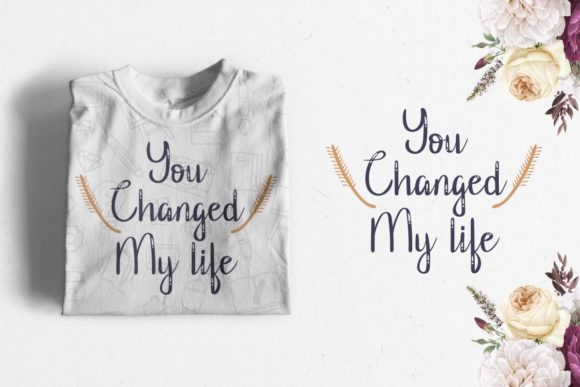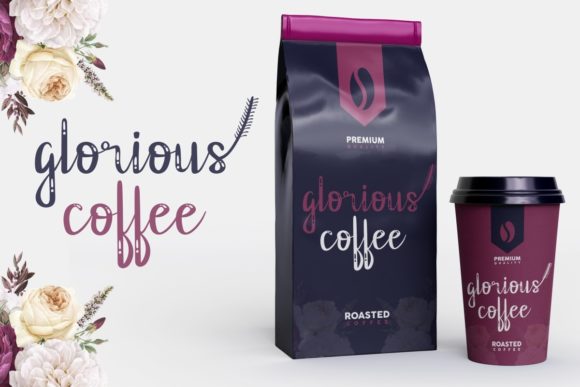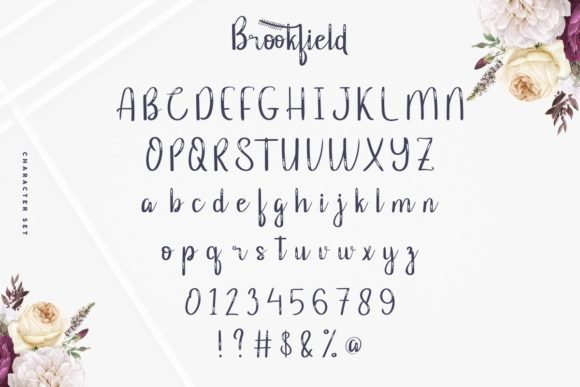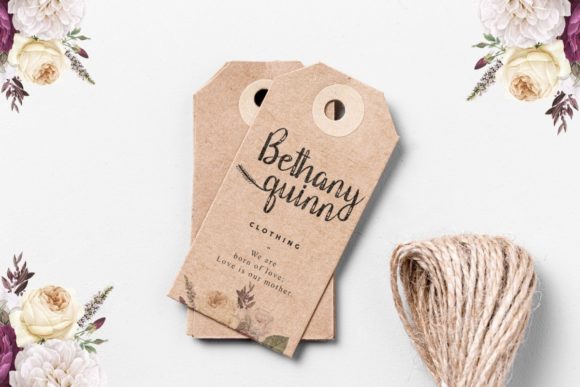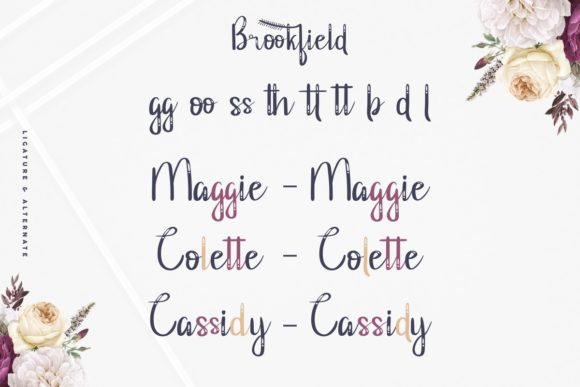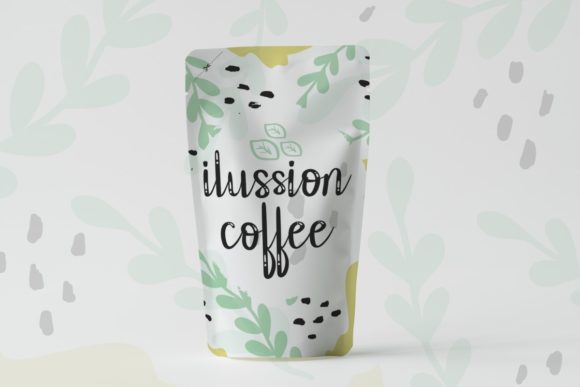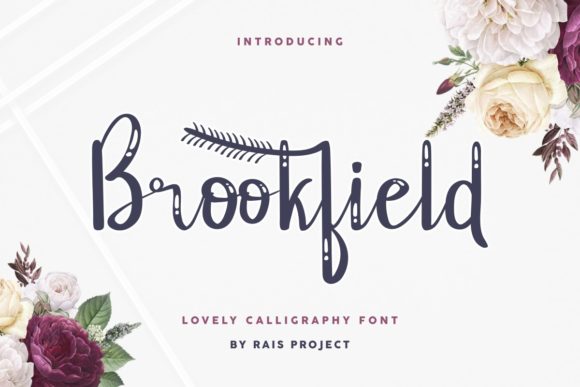
Discover the Magic of Brookfield Font: A Whimsical and Genuine Handwritten Font
Are you tired of using the same old fonts for your creative projects? Look no further than the Brookfield Font, a whimsical and genuine handwritten font that’s sure to add a touch of magic to your designs. Expertly crafted to make your creation look out of this world, Brookfield is the perfect choice for designers and crafters looking to add a personal touch to their work.
What Makes Brookfield Font So Special?
Brookfield Font is a unique and charming handwritten font that’s been designed to bring a sense of playfulness and sophistication to your designs. With its flowing lines and genuine feel, this font is perfect for a wide range of creative projects, from branding and advertising to crafting and DIY tutorials.
One of the standout features of Brookfield Font is its versatility. Whether you’re looking to create a bold and eye-catching design or a more subtle and understated look, this font can adapt to any style or theme. Its whimsical feel makes it perfect for projects that require a touch of personality and flair, while its genuine handwritten look ensures that it remains relatable and authentic.
How to Use Brookfield Font in Your Designs
Brookfield Font is incredibly easy to use, making it perfect for designers and crafters of all skill levels. Here are just a few ways you can incorporate this amazing font into your creative projects:
• Branding and Advertising: Use Brookfield Font to create eye-catching logos, business cards, and marketing materials that showcase your brand’s personality and style.
• Crafting and DIY Tutorials: Add a personal touch to your crafting and DIY tutorials with Brookfield Font, perfect for creating handmade cards, gift tags, and other paper crafts.
• Social Media Graphics: Use Brookfield Font to create engaging social media graphics, such as quote graphics, Facebook posts, and Instagram stories.
• Web Design: Add a touch of whimsy to your website with Brookfield Font, perfect for headings, titles, and other design elements.
Tips and Tricks for Getting the Most Out of Brookfield Font
To get the most out of Brookfield Font, here are a few tips and tricks to keep in mind:
• Experiment with Different Sizes: Brookfield Font looks great in a variety of sizes, from large headings to smaller body text. Experiment with different sizes to find the perfect fit for your design.
• Pair with Other Fonts: Brookfield Font pairs perfectly with other fonts, such as sans-serif fonts for a modern look or script fonts for a more elegant feel.
• Use in Combination with Images: Brookfield Font looks great in combination with images, such as photographs or illustrations. Use it to add a touch of personality to your designs.
Why Choose Brookfield Font?
With so many fonts to choose from, why should you choose Brookfield Font? Here are just a few reasons why this font stands out from the rest:
• Unique and Whimsical: Brookfield Font is a truly unique and whimsical font that’s sure to add a touch of magic to your designs.
• Genuine Handwritten Look: With its genuine handwritten look, Brookfield Font is perfect for designers and crafters looking to add a personal touch to their work.
• Versatile: Brookfield Font is incredibly versatile, making it perfect for a wide range of creative projects.
In conclusion, Brookfield Font is a must-have for designers and crafters looking to add a touch of whimsy and personality to their creative projects. With its unique and genuine handwritten look, this font is sure to make your designs stand out from the rest. So why wait? Download Brookfield Font today and start creating your own magical designs!